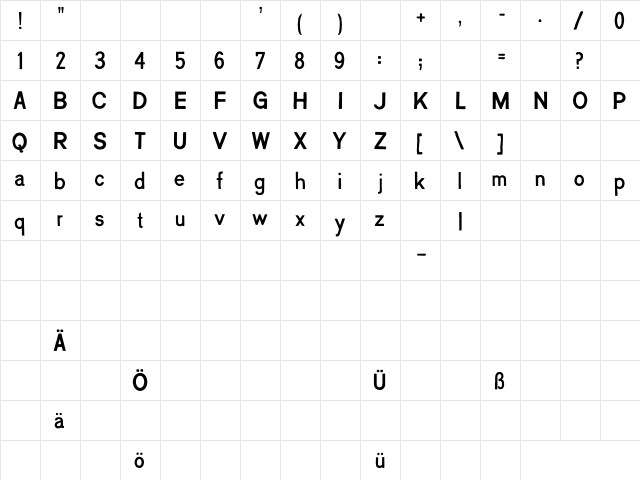
Creatinin PAP
Design Context for Creatinin Typeface
Creatinin offers clean, dependable letterforms without strong stylistic allegiance, making it a practical choice for designers who need flexibility.
Pro Tip: Pair Creatinin with a font of contrasting weight or personality to build a more expressive typographic hierarchy.